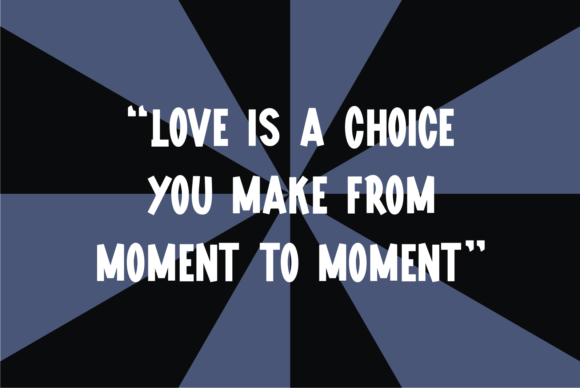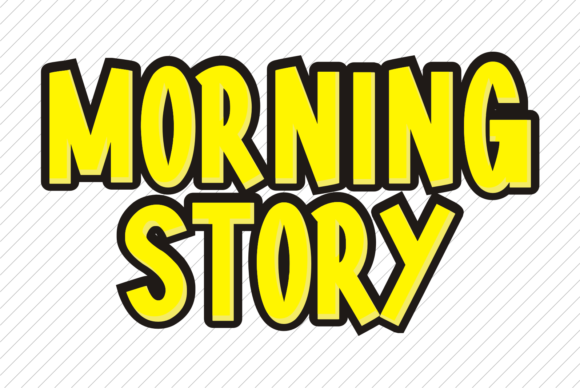
Daelani Bretline Font
Daelani Bretline Font is a cool and adaptable display font. This font is suitable for designs such as t-shirts, sportswear, posters, logos, advertisements, clothing, and more.
Daelani Bretline Font is a cool and adaptable display font. This font is suitable for designs such as t-shirts, sportswear, posters, logos, advertisements, clothing, and more. Whatever the topic, this font will be a great asset to your font collection, as it has the potential to enhance any creation.